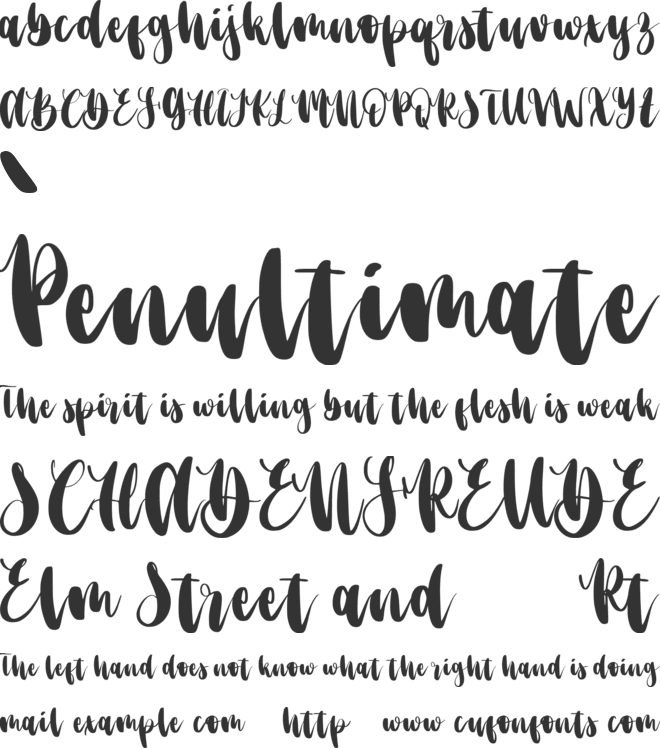
Better Matters Font
Discover the whimsical magic woven into every curve and letter of Better Matters, a meticulously hand-sketched font luxuriating in refined charm. Cleverly intertwining distinct ligatures, this font manifests a delightful and relaxed ambiance, effortlessly matching diverse artistic aspirations. With its digital versatility, Better Matters blends flawlessly into your preferred designing tool, enhancing your digital canvas like a breeze. Unleash the captivating allure of this nature-inspired, refreshingly simple font, and infuse a lively breath into your designing piece.